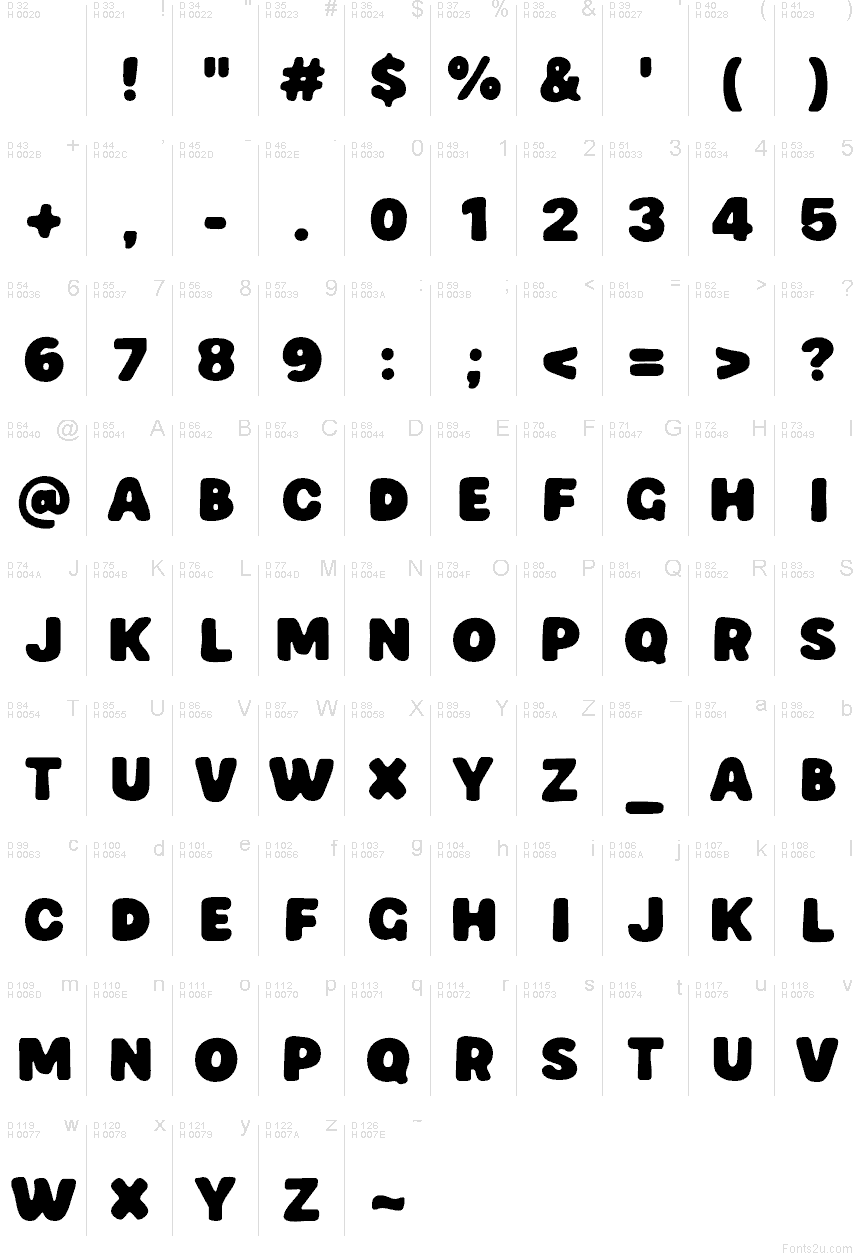
Steak Melt
Steak Melt font by MJType is a free cartoon display typeface with a deliciously gooey attitude. Its thick, rounded letters feel soft and squishy, like something bubbling up from a hot grill or oozing from a melting sundae. The bold silhouettes and tight spacing create a friendly, noisy presence that grabs attention instantly, even from across a busy street or crowded feed.
Using Steak Melt, you can give food trucks, kids’ menus, snack packaging, game titles, YouTube thumbnails, and birthday invitations the same fun, drippy energy. This free font shines biggest and boldest at large sizes, where its blobby curves can really breathe; pair it with a simple geometric sans for smaller copy to keep things readable while the logo or headline does all the tasty talking.